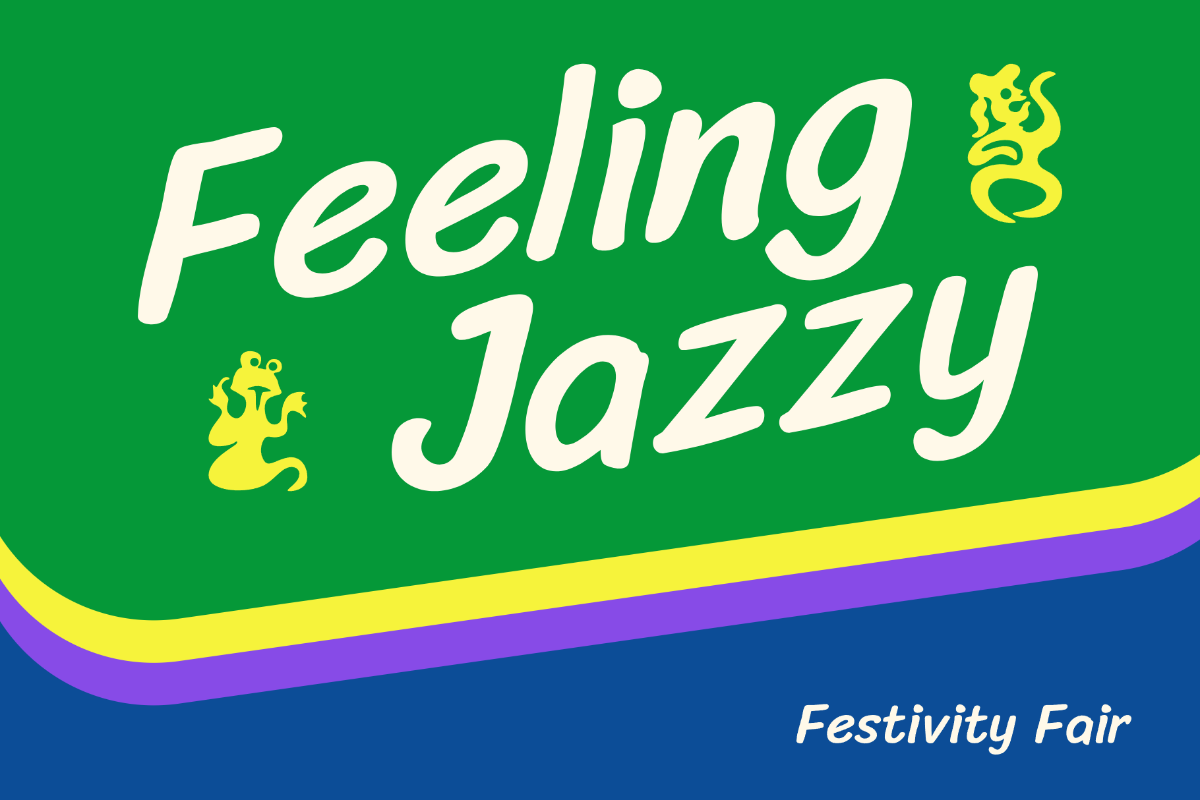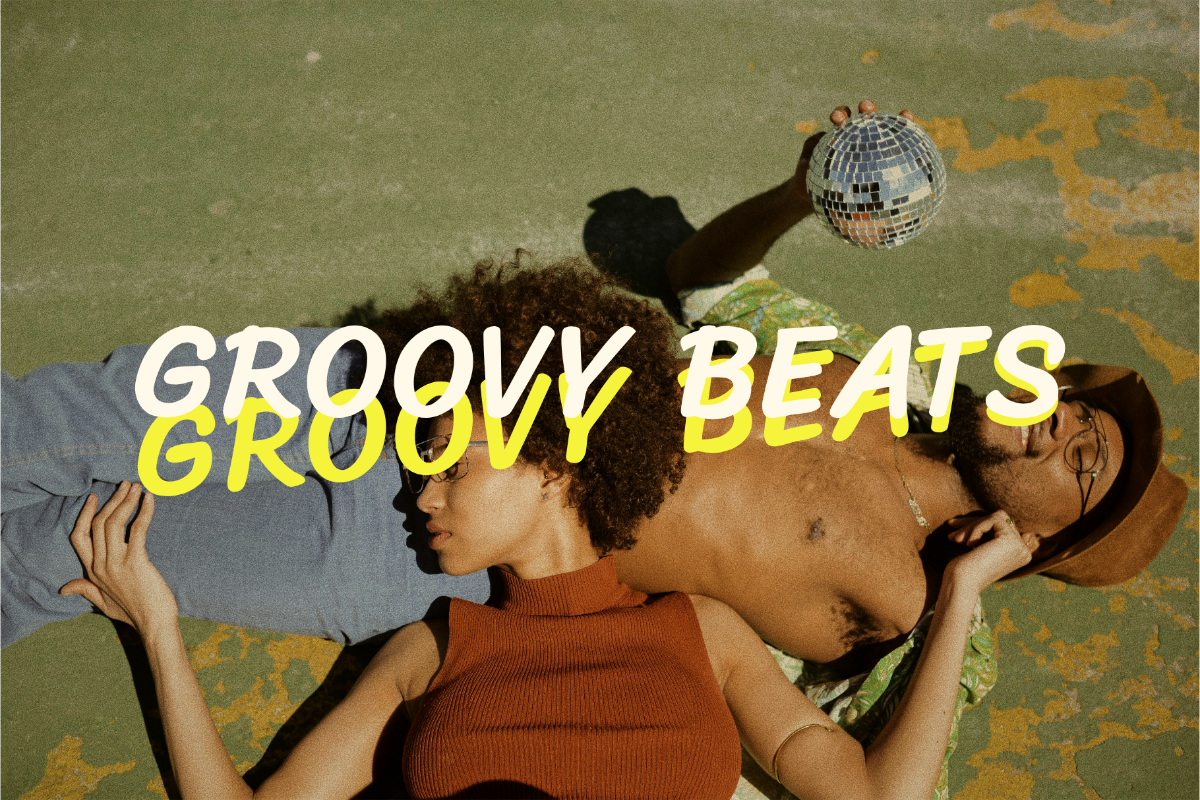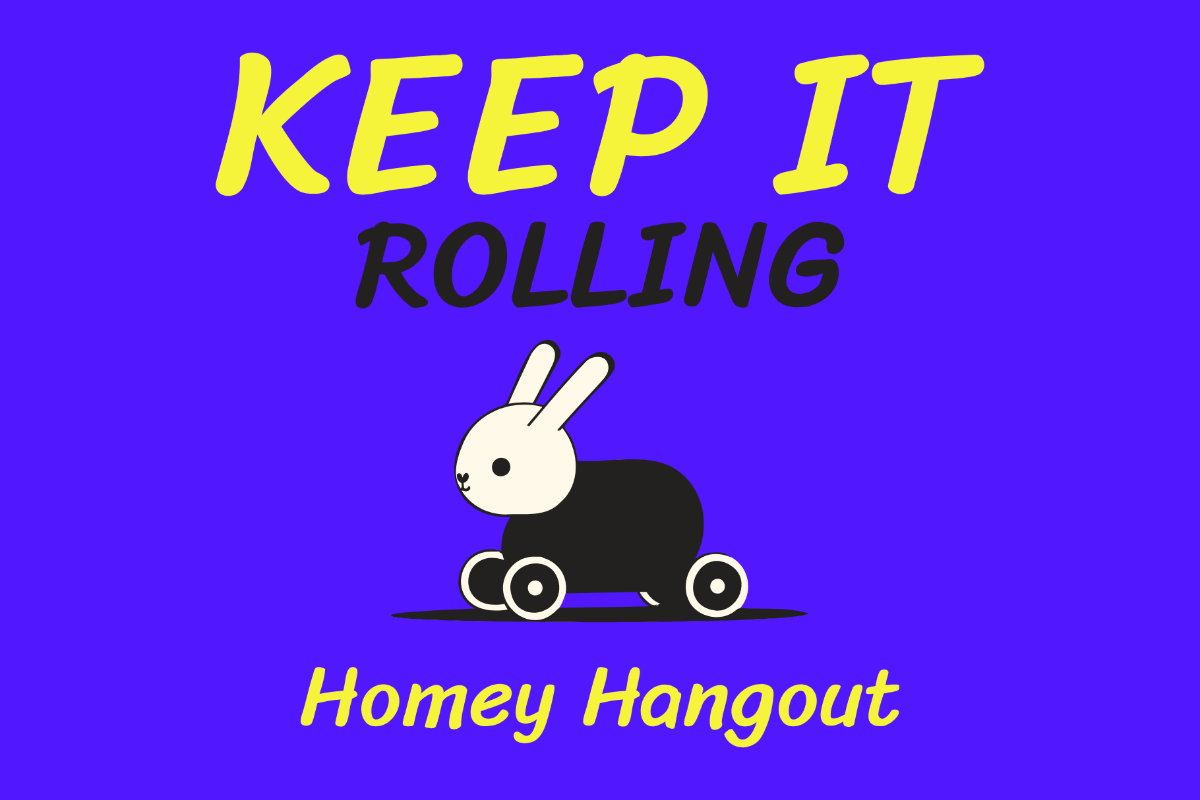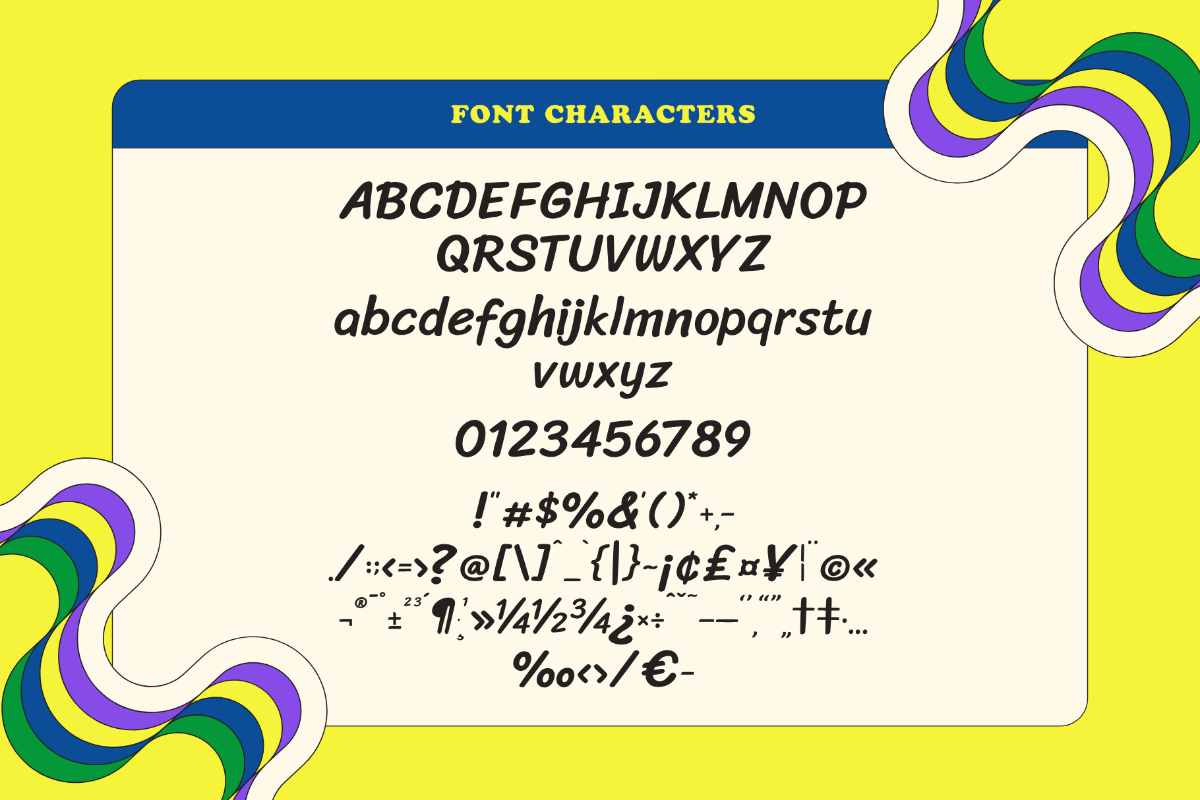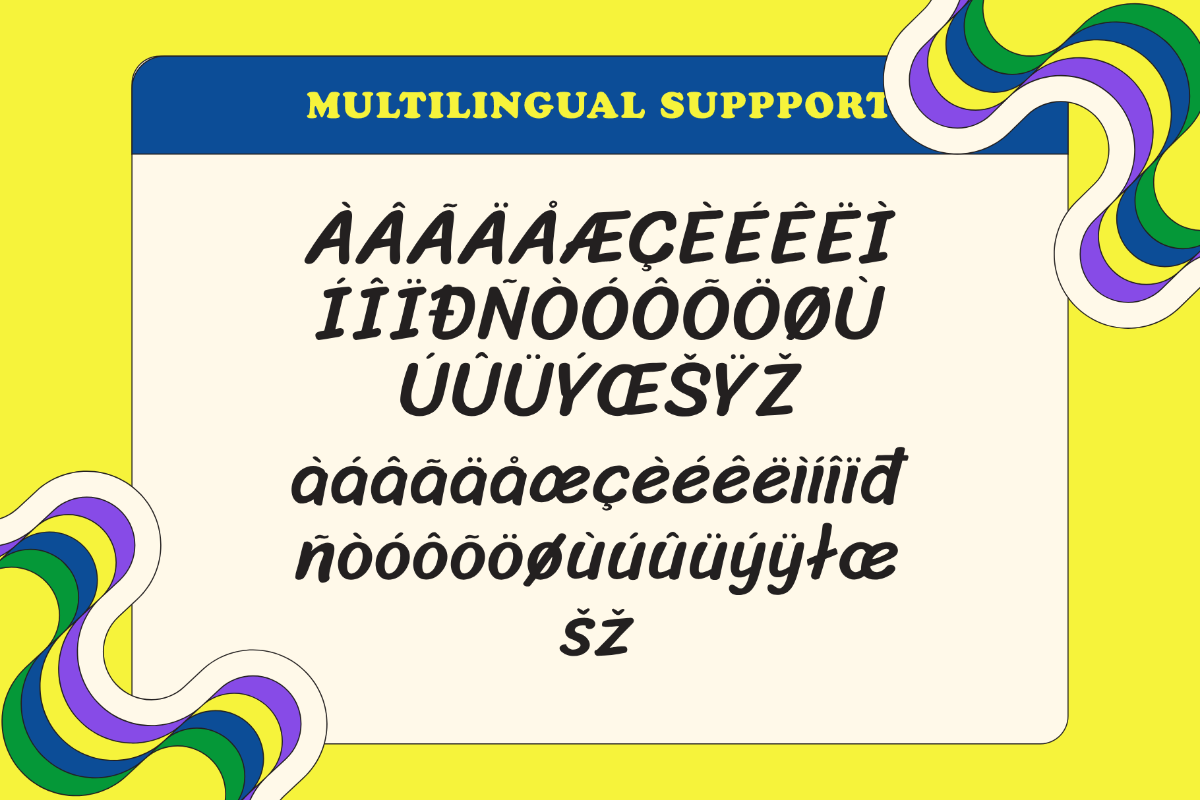
Jasper – Playful Display Font
Say hello to Jasper, a bold and cheerful display font designed to bring a splash of fun into your creative projects! With its rounded, slanted letters and vibrant shadow style, Jasper is perfect for designs that want to stand out and spread good vibes.
- Uppercase & lowercase letters
- Multilingual support